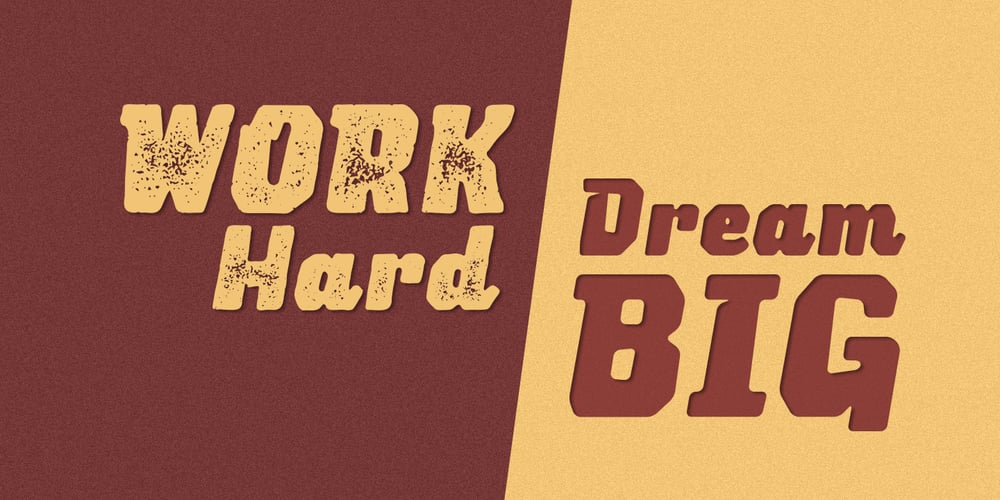
Lemoo Font Family was designed by Arwan Sutanto and published by Locomotype. Lemoo contains 5 styles and family package options. Lemoo is a family of fat fonts made with irregular shapes to make it more dynamic and unusual. This font will give the impression of solid, strong and prominent. Suitable for headlines, posters and messages that want to stand out. There are two styles in each variant: clean and press. You can mix and match the Lemoo font family to get different results. The ligature feature makes some pairs of letters more interesting on your headline and posters. Lemoo fonts are available in OTF and TTF format, also multilingual support.